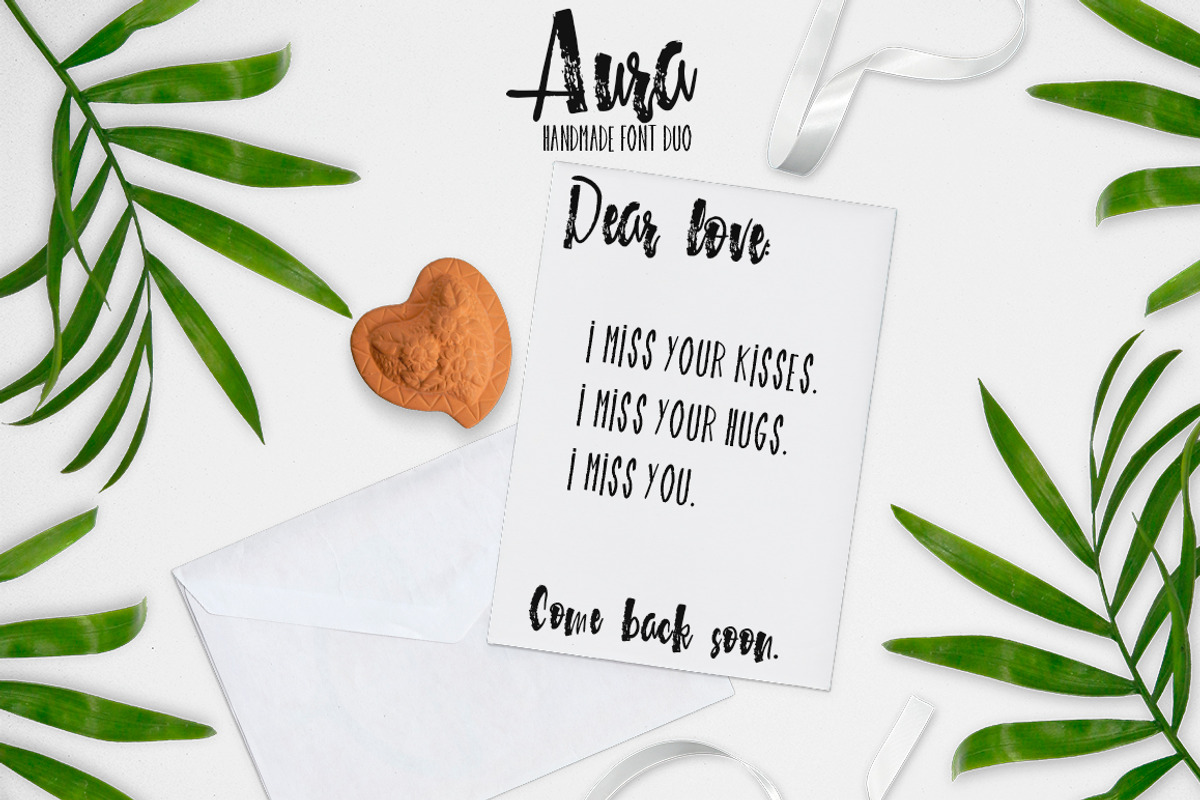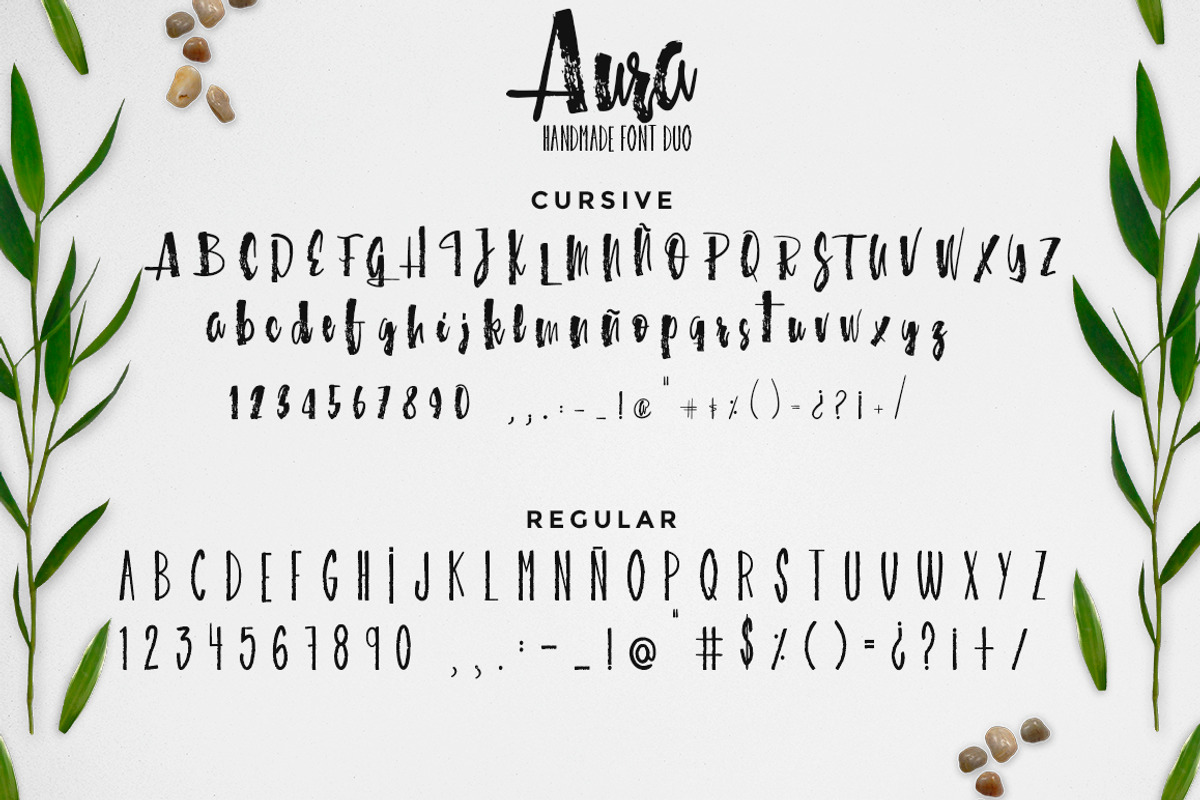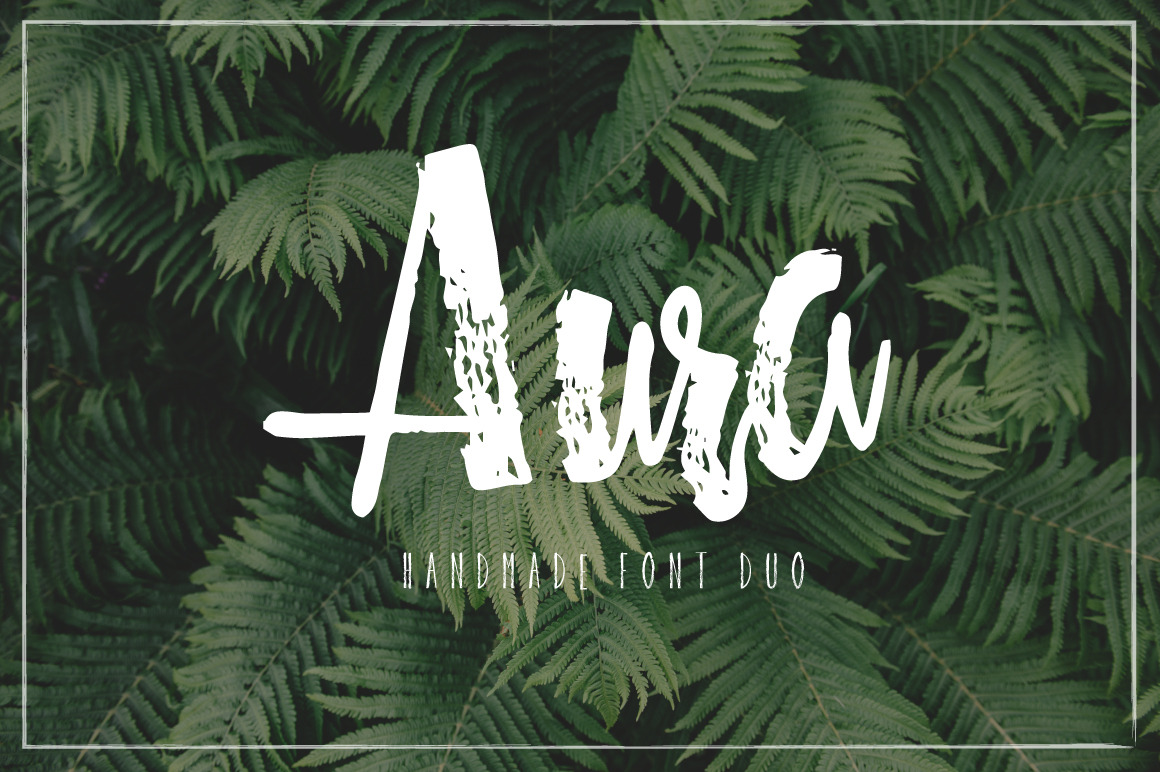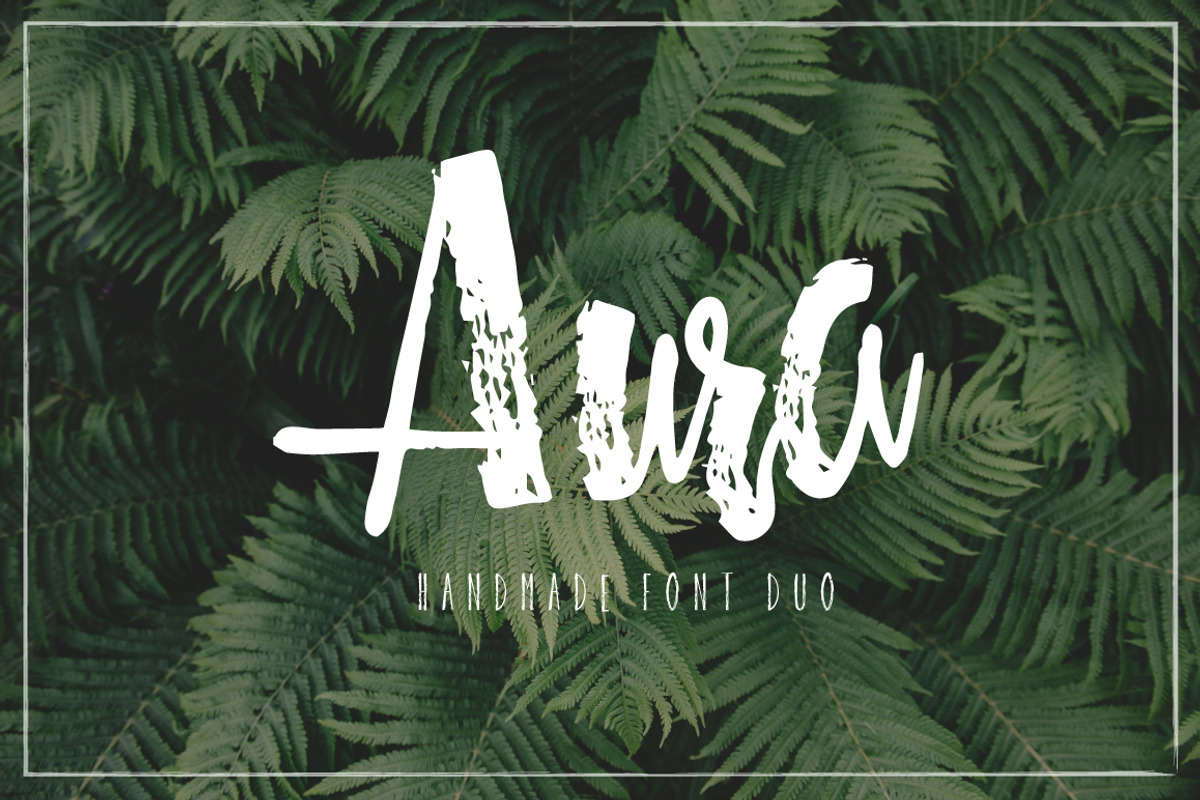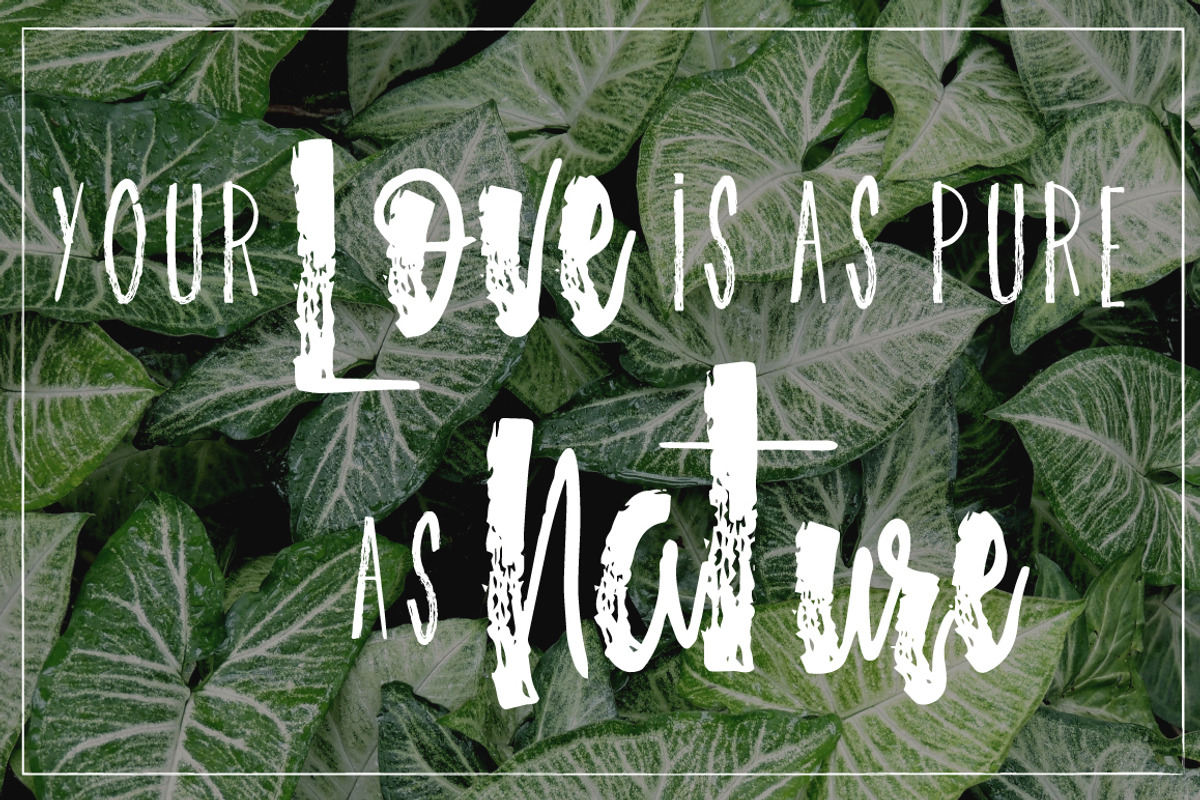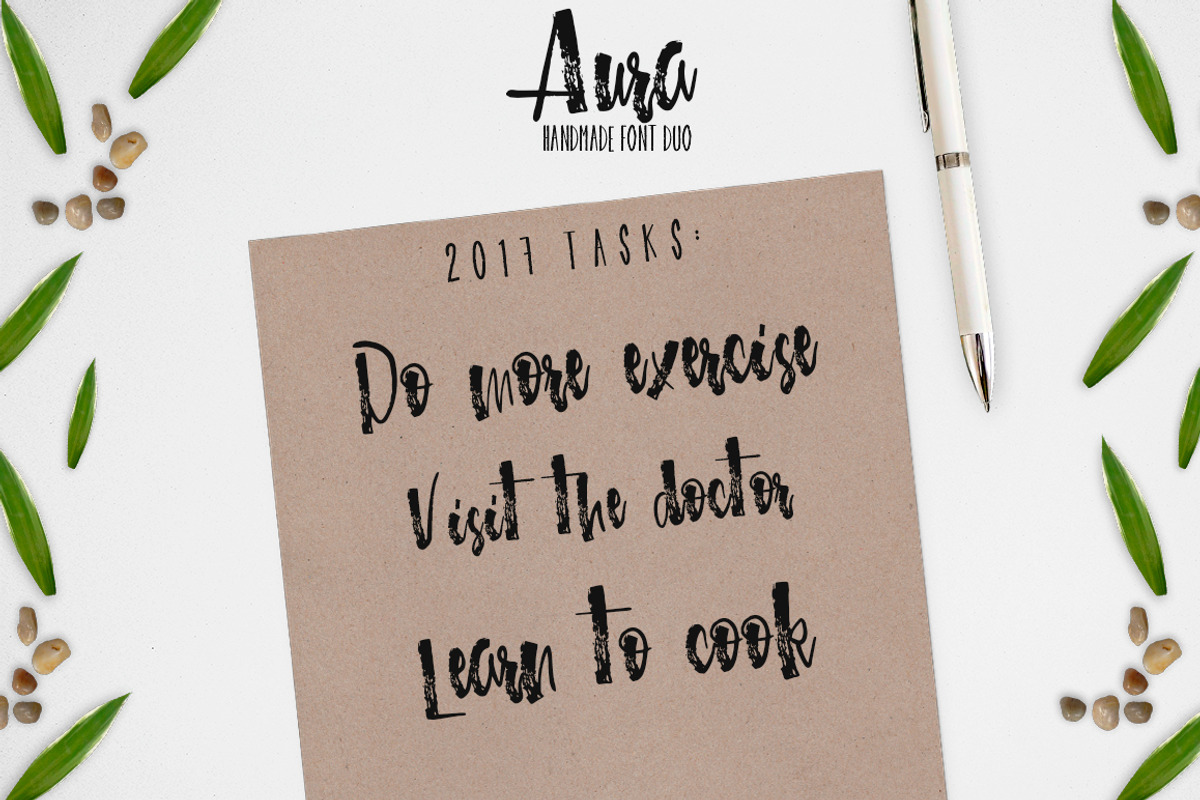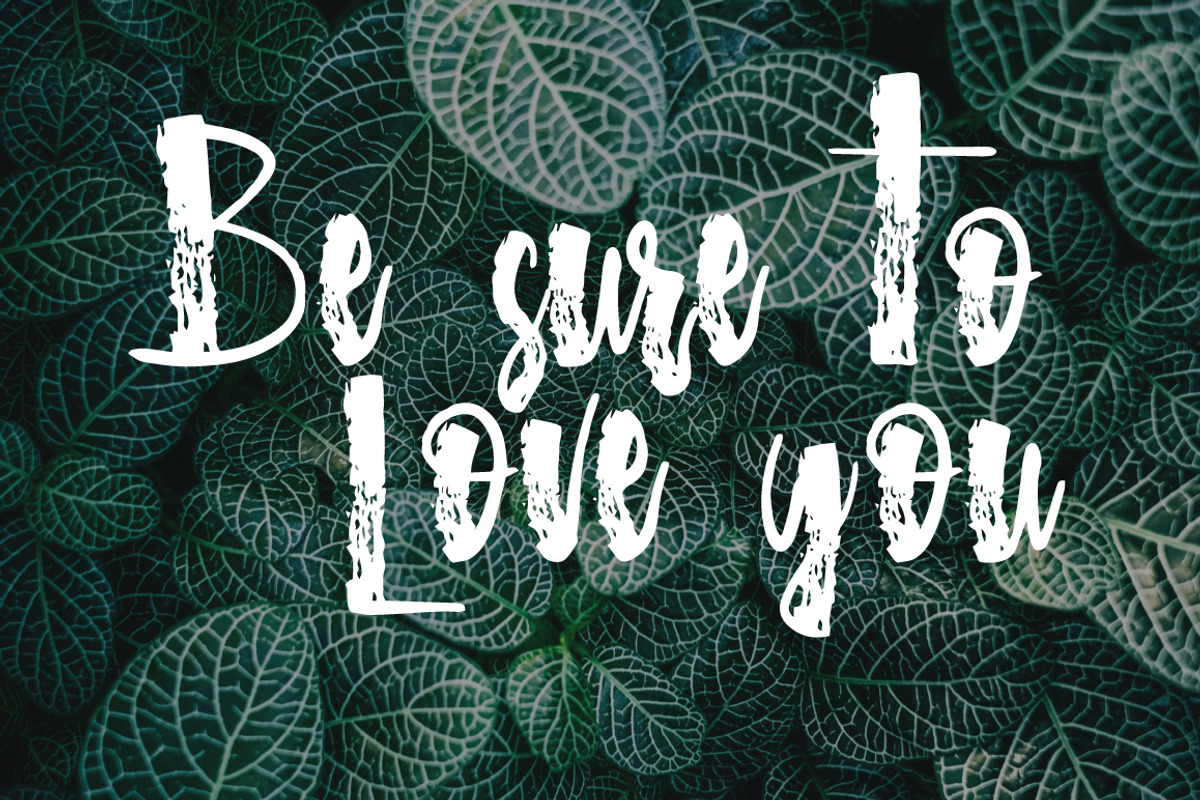
Aura font duo!
Aura - handmade font duo!
This time a present to you this elegant and stylish font pack, it was handmade with a marker pen. With these two you can create anything you want, don't hold down your creativity and just let go.
- Perfect for wedding invites, brands, social media, presentations, blogs, etc.
- It has latin characters ¡Qué viva el poder de la ñ!
- Perfect for pairing with other fonts.